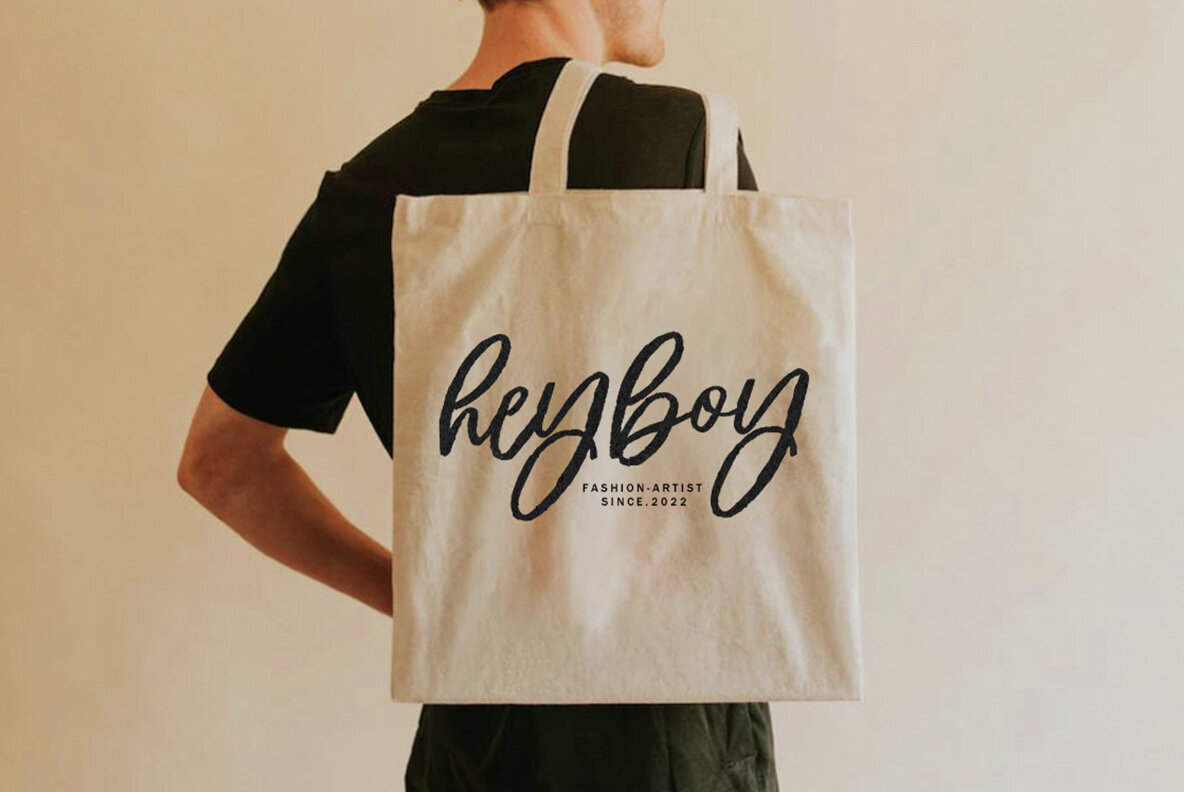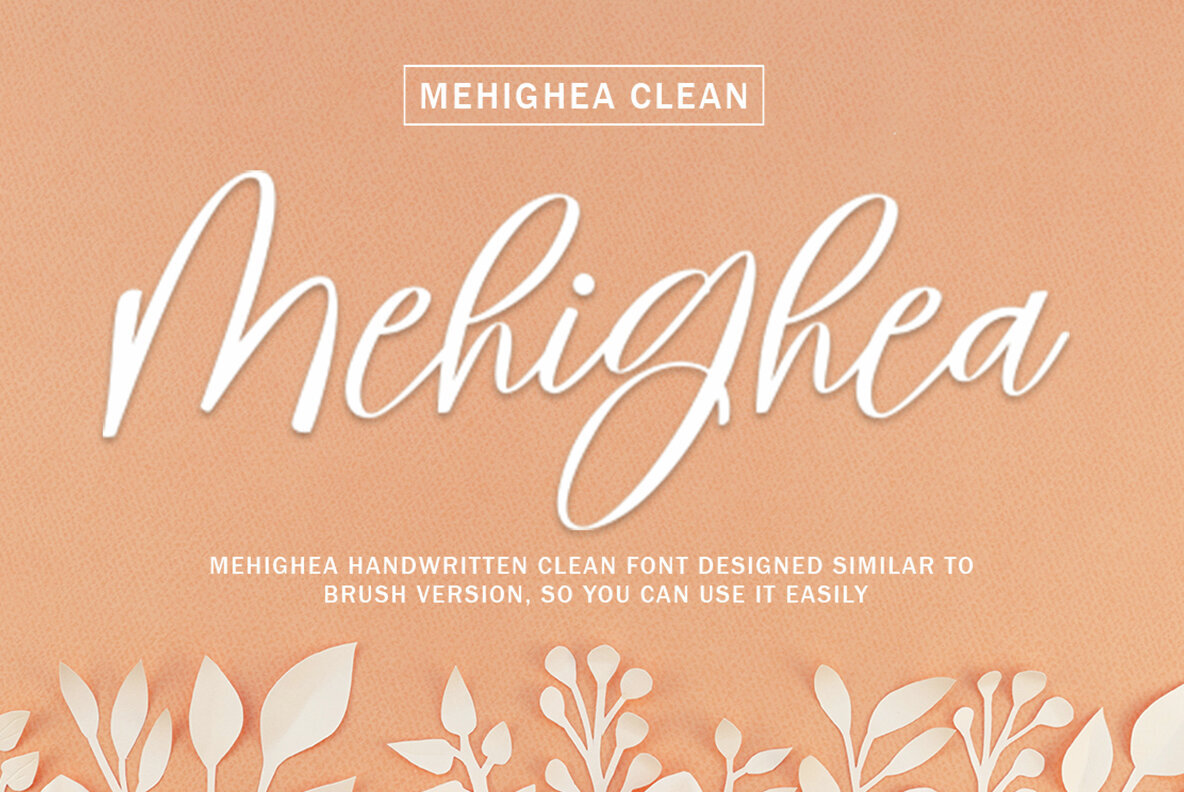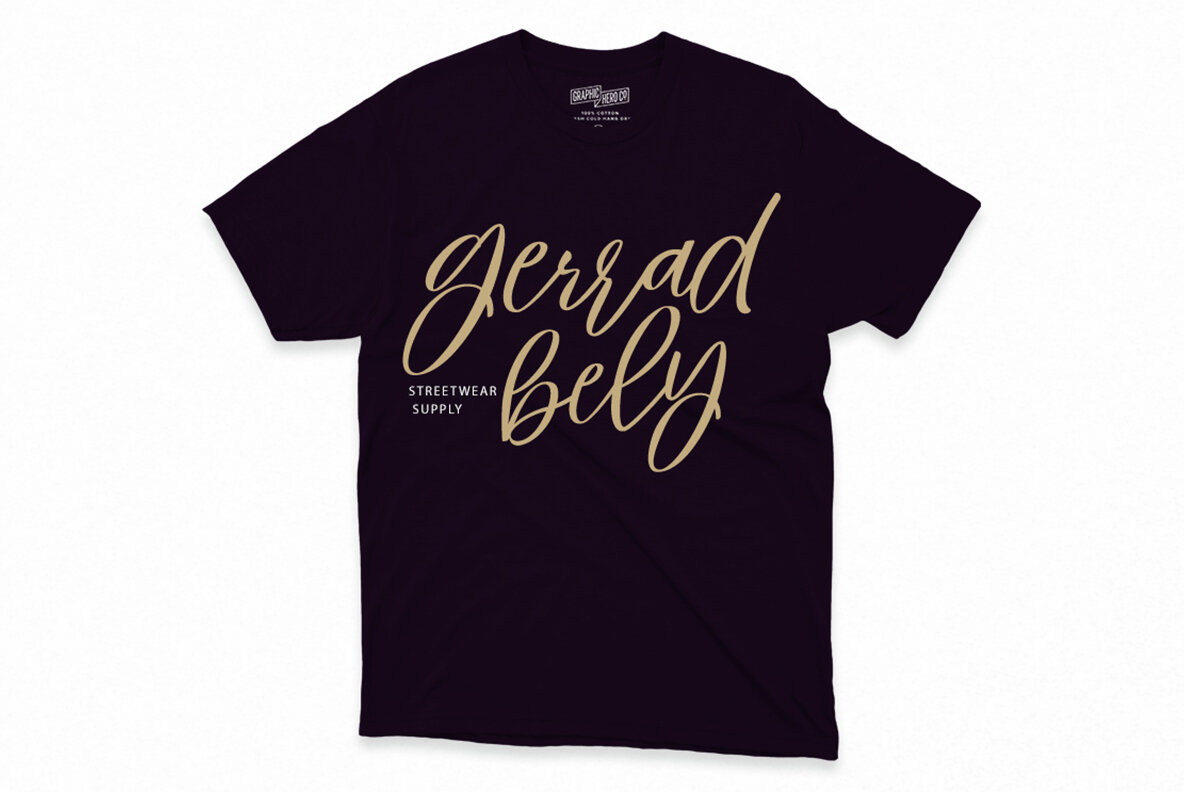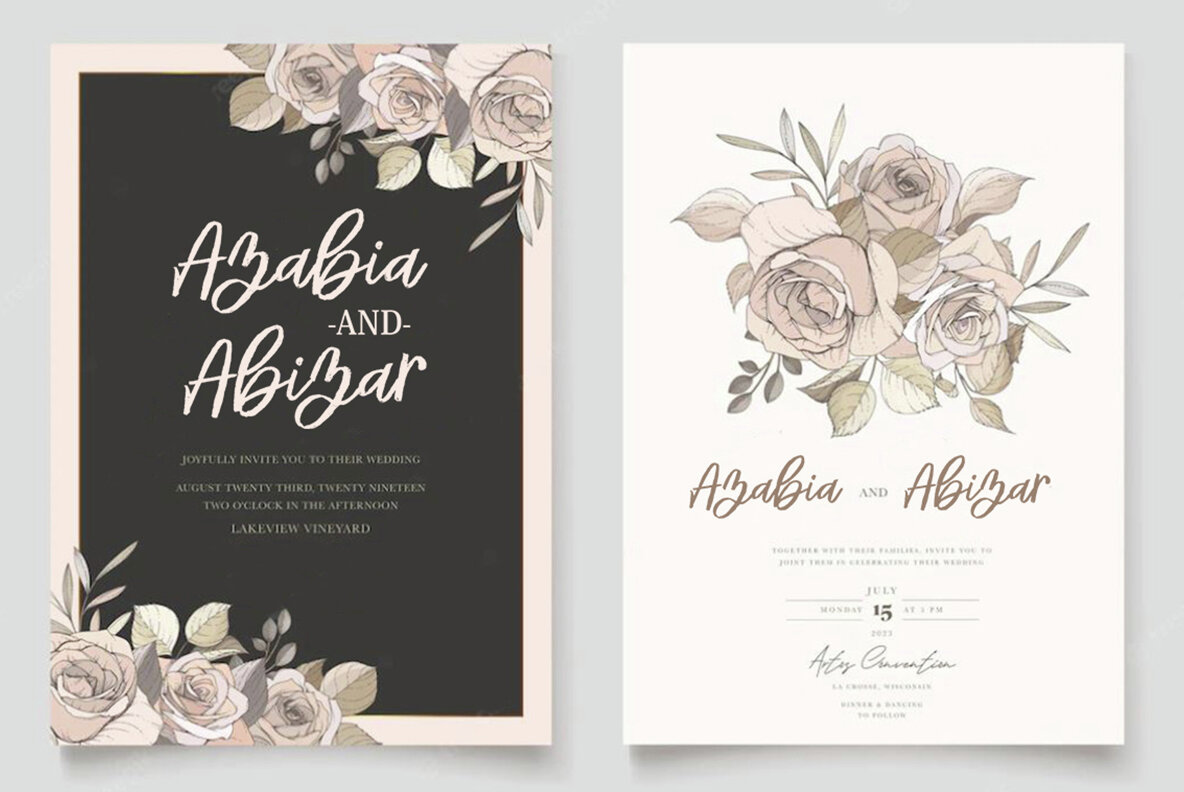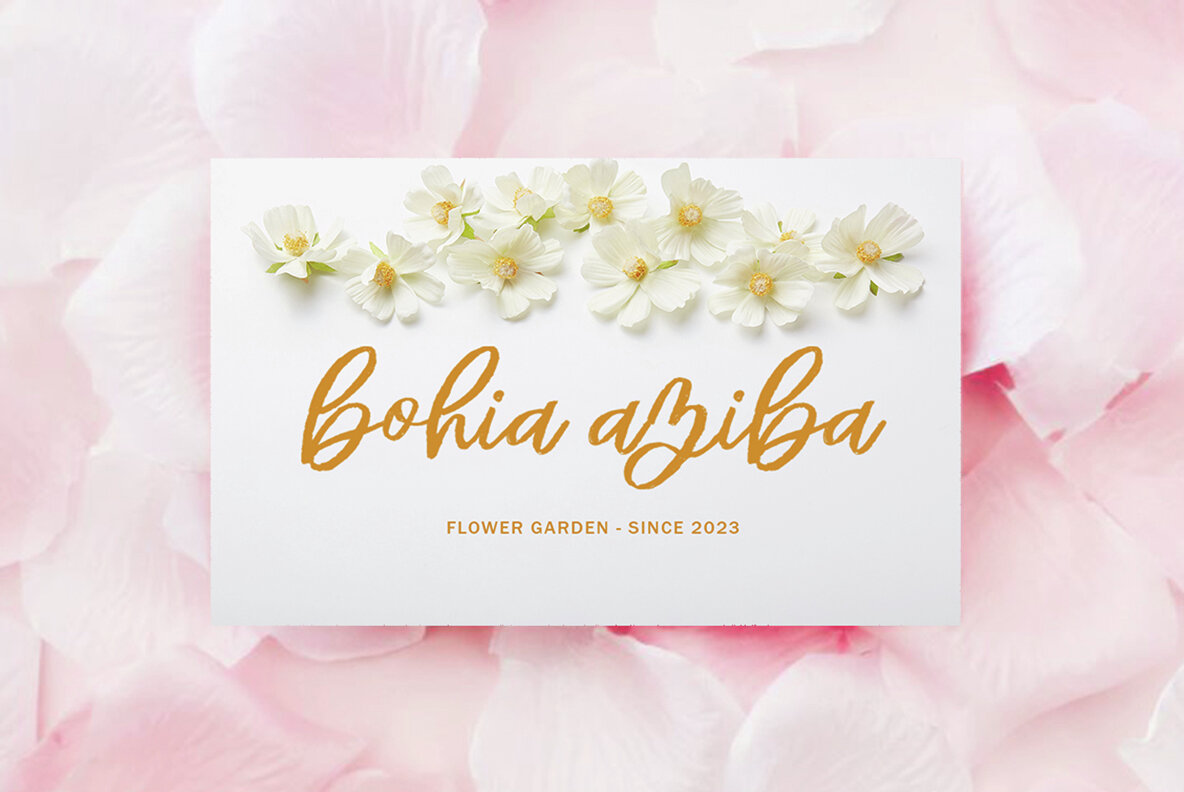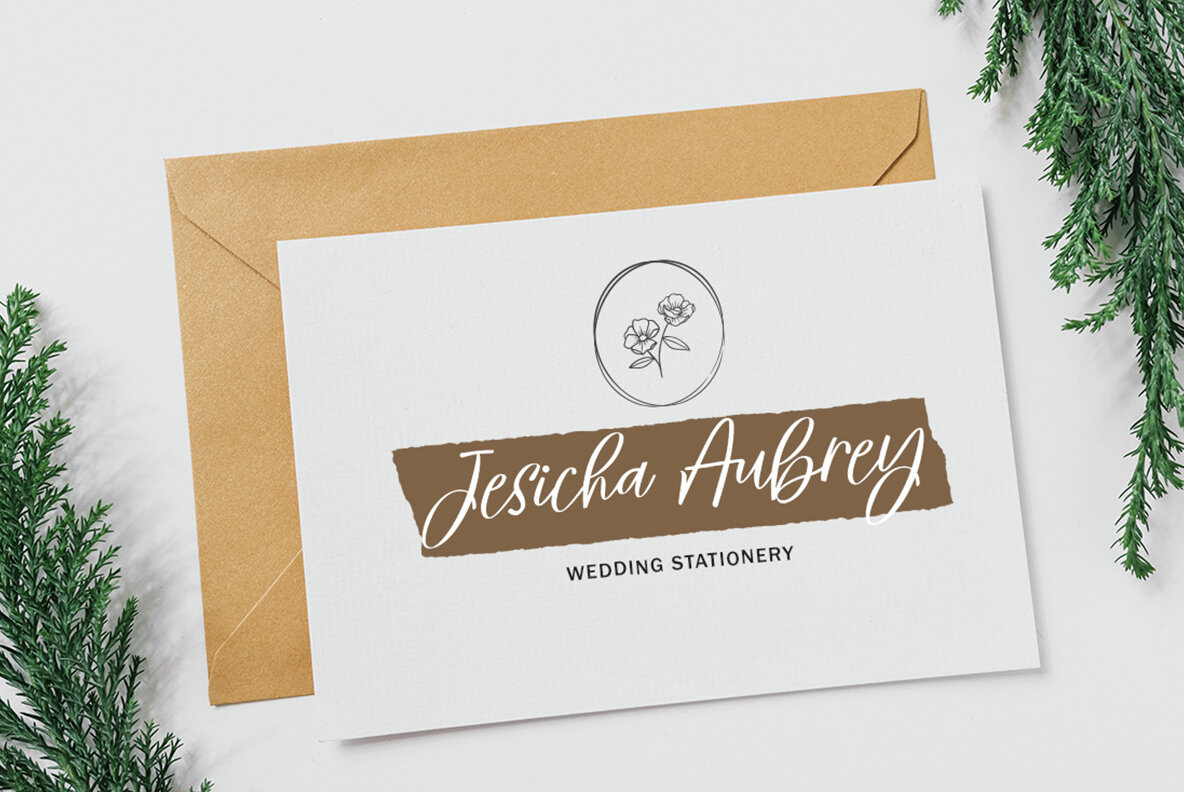
Mehighea Font
Mehighea includes two modern font sets: Mehighea Regular and Mehighea Clean. These fonts embody an organic, dynamic, and energetic style, making them versatile for various applications. Use them for crafting exceptional titles, logos, and signatures, or enhance personal project designs like wedding invitations, correspondence, and letterheads. Additionally, their adaptability extends to creating impactful nameplates, labels, newsletters, posters, badges, and more.